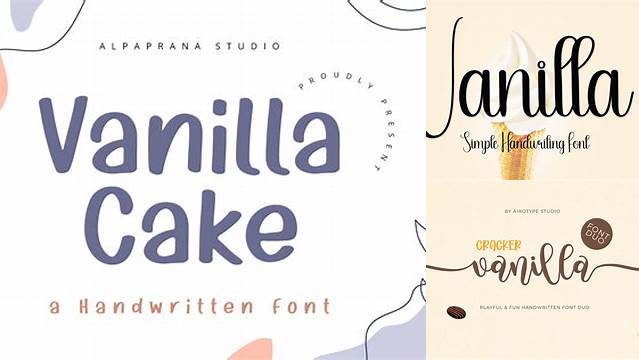
Vanilla Cake Font: Free Downloads & Sweet Typography
Hey guys! Are you on the hunt for a font that's as delightful and charming as a freshly baked vanilla cake? Look no further! The quest for the perfect vanilla cake font free download ends here. In this article, we'll dive deep into the world of vanilla cake-inspired typography, exploring what makes these fonts so special, where you can find them, and how to use them to add a touch of sweetness to your projects. Whether you're designing invitations, creating a logo, or just want to spice up your social media graphics, a vanilla cake font can be the perfect ingredient.
What Makes a Font a "Vanilla Cake" Font?
So, what exactly defines a "vanilla cake" font? It's not just about the name; it's about the feeling these fonts evoke. Think about the qualities of a vanilla cake: it's classic, comforting, elegant, and often associated with celebrations. Vanilla cake fonts typically share these characteristics. These fonts often possess a soft, rounded, and friendly appearance, making them versatile for a wide range of applications. They tend to be legible and approachable, avoiding harsh lines or overly complex designs. Instead, they convey a sense of warmth and sophistication, much like the taste of vanilla itself. You might find that these fonts incorporate swirls, loops, or delicate serifs to enhance their visual appeal, reminiscent of the frosting and decorations on a cake. Some may even feature playful, handwritten styles that mimic the casual elegance of a handwritten recipe. The key is to capture that sense of joy and indulgence that comes with enjoying a slice of vanilla cake.
Furthermore, the versatility of vanilla cake fonts lies in their ability to adapt to different design aesthetics. They can be used in both formal and informal contexts, lending themselves well to everything from wedding invitations and branding materials to children's books and social media posts. The color palette you choose to pair with a vanilla cake font can also significantly influence the overall mood of your design. Pastel colors, for instance, can amplify the font's sweetness and gentleness, while bolder, brighter colors can add a touch of vibrancy and excitement. Consider the weight of the font as well; a lighter weight may evoke a sense of delicacy and refinement, whereas a heavier weight can create a stronger, more impactful statement. Ultimately, the goal is to select a font that not only captures the essence of a vanilla cake but also aligns seamlessly with the specific needs and goals of your project. By carefully considering these factors, you can harness the power of vanilla cake fonts to create designs that are both visually appealing and emotionally resonant.
Where to Find Free Vanilla Cake Fonts
Don't forget to explore different variations within a font family as well. Many vanilla cake-inspired fonts come in multiple weights (light, regular, bold) and styles (italic, condensed), providing you with greater flexibility in your designs. Experimenting with these variations can help you create visual hierarchy and add depth to your typography. Additionally, consider the pairing of your chosen font with other fonts. A delicate script or handwritten font might pair beautifully with a clean, sans-serif font for a balanced and sophisticated look. By taking the time to explore these options and experiment with different combinations, you can elevate your designs and create a truly unique and captivating visual experience. Remember, typography is a powerful tool that can significantly impact the overall message and aesthetic of your work, so choose wisely and have fun with it!
How to Use Vanilla Cake Fonts in Your Designs
Okay, you've found the perfect vanilla cake font – now what? Here are some ideas on how to use it effectively in your designs:
- Invitations: Vanilla cake fonts are amazing for wedding invitations, birthday party invites, and baby shower announcements. Their elegant and celebratory feel makes them a natural fit for these occasions.
- Logos and Branding: If your brand has a sweet, friendly, or classic vibe, a vanilla cake font can be a great choice for your logo and branding materials. Think bakeries, cafes, boutiques, or even personal brands.
- Social Media Graphics: Add a touch of personality to your social media posts with a vanilla cake font. Use it for quotes, announcements, or to highlight special offers.
- Website Headers and Titles: A well-chosen vanilla cake font can make your website headers and titles stand out. Just be sure to use it sparingly and pair it with a more readable font for body text.
Let's Get Baking (Designs, That Is!)!